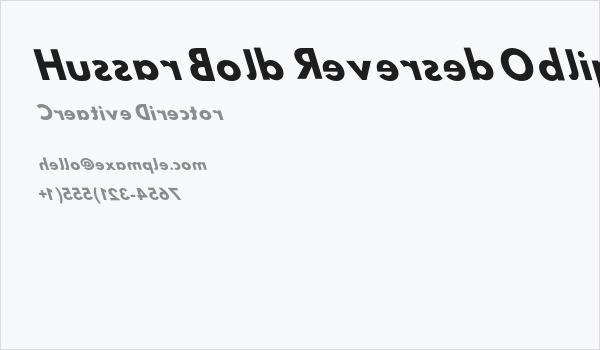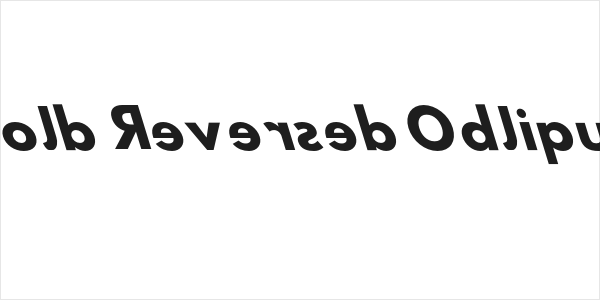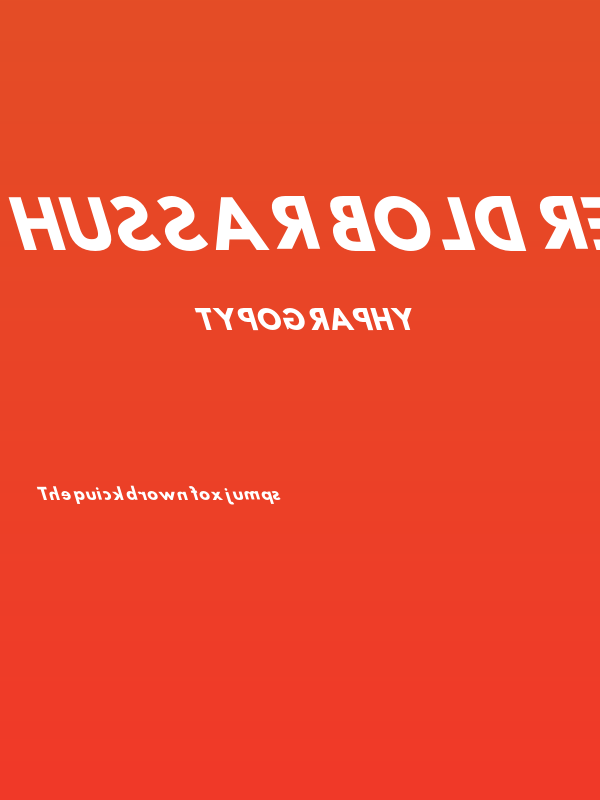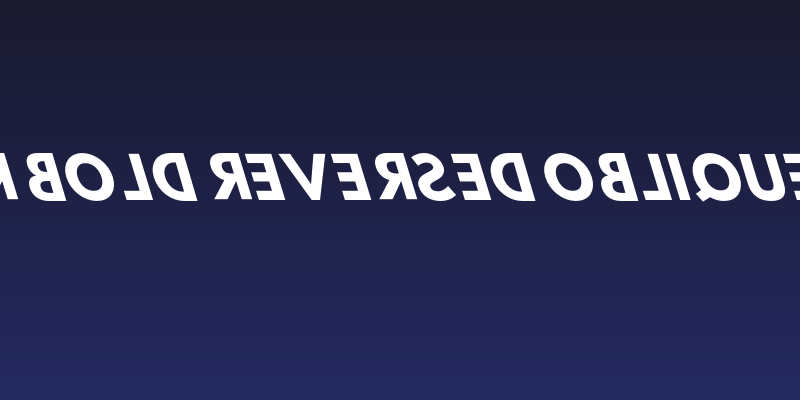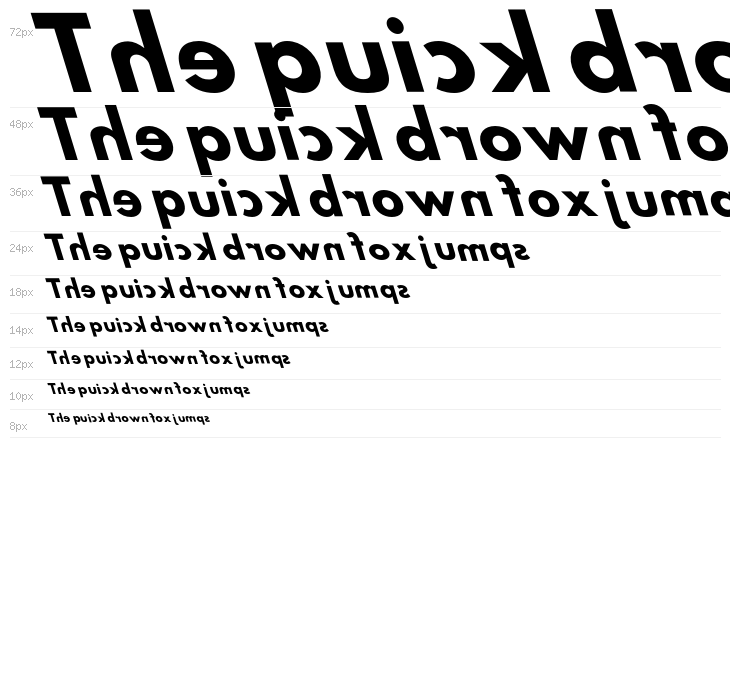
Hussar Bold Reversed Oblique Three Font
Hussar Bold Reversed Oblique Three Description
This font exhibits a bold and dynamic style with a reversed oblique slant, creating a unique and eye-catching appearance. The characters are thick and robust, emphasizing their presence on the page. The angular design of the letters adds a modern and edgy feel, making it suitable for attention-grabbing headlines or titles. The uppercase and lowercase letters maintain a consistent boldness, while the numbers and special characters follow the same stylistic approach, ensuring uniformity across all text elements.
Proposed ProjectsIdeal for posters, logos, branding materials, and any design requiring a strong visual impact.